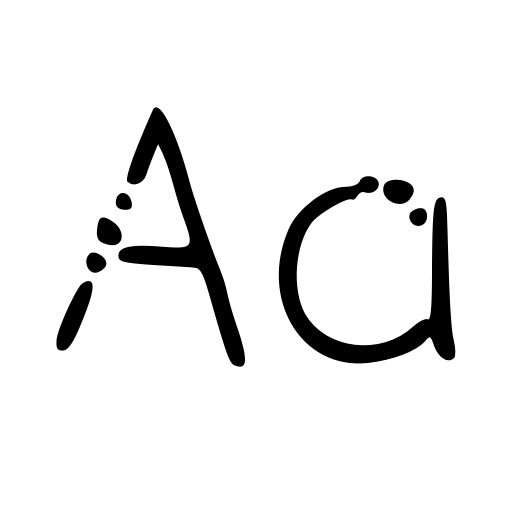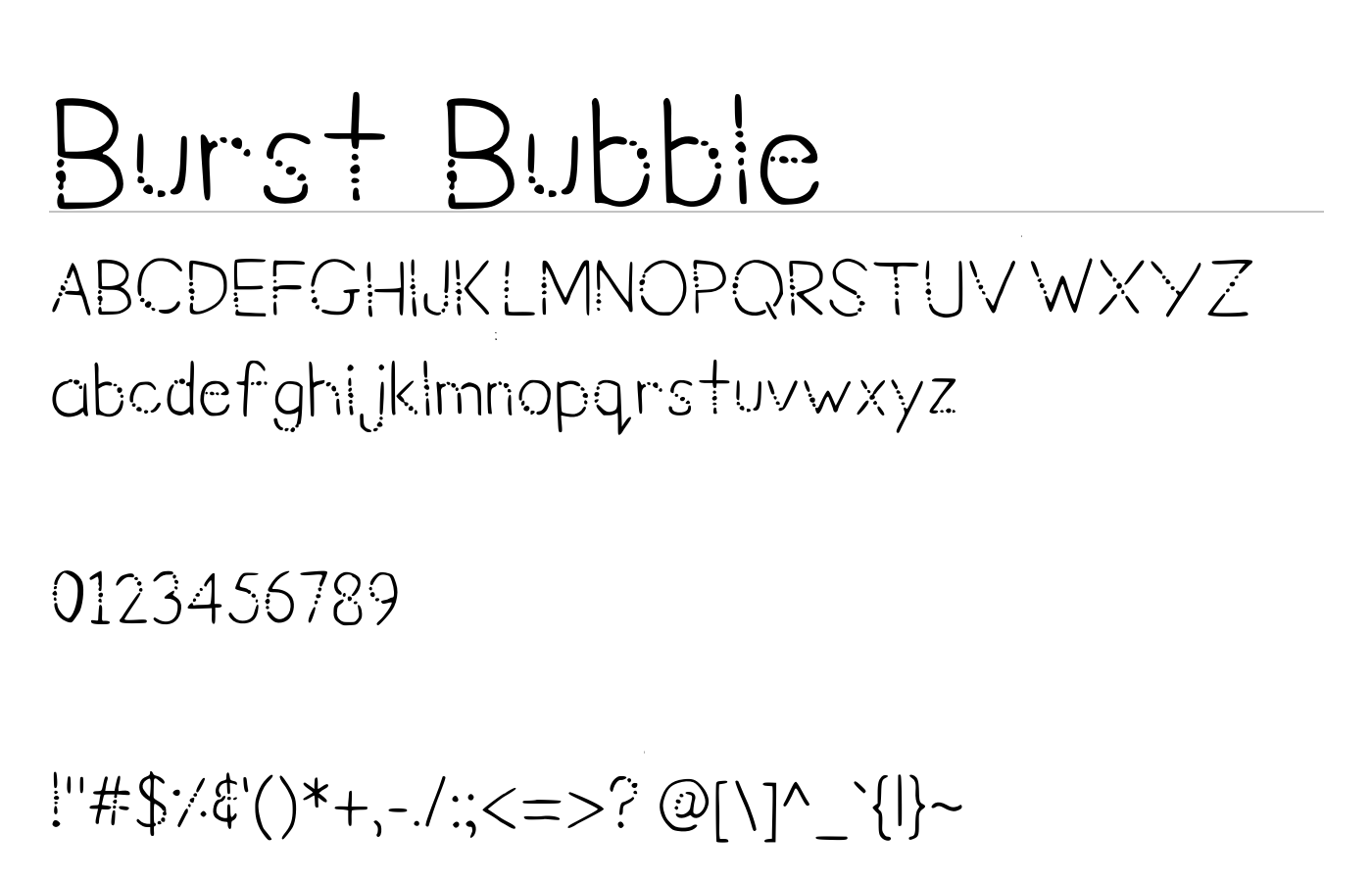
Burst Bubble Font is a playful, hand-drawn sans serif with a light weight and airy feel, featuring whimsical dotted embellishments that add a bubbly, fun personality. Its irregular, casual letterforms make it perfect for creative projects like children's books, party invitations, or playful branding that wants to convey joy and lightheartedness. This font works best in headlines or decorative uses where its unique style can stand out and bring a cheerful vibe.
Burst Bubble Font
About Burst Bubble Font